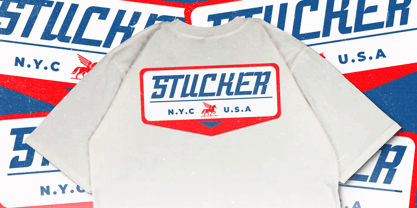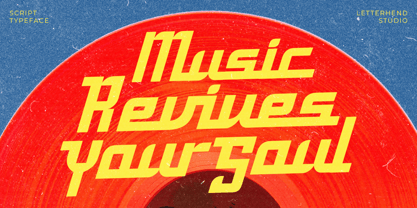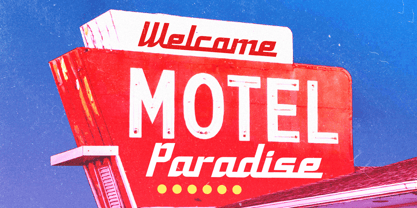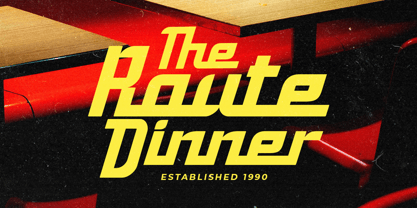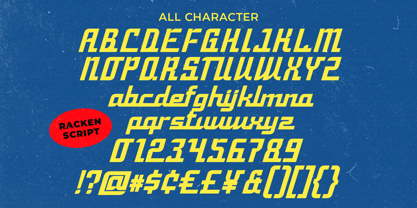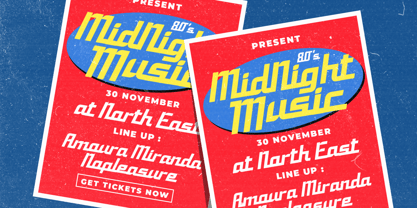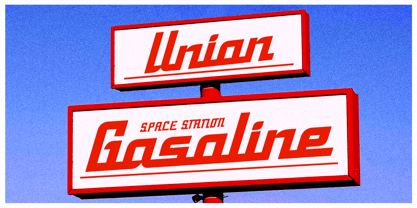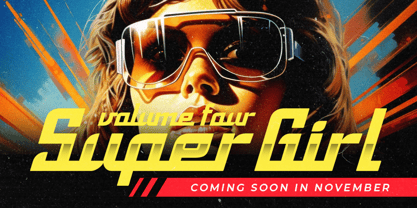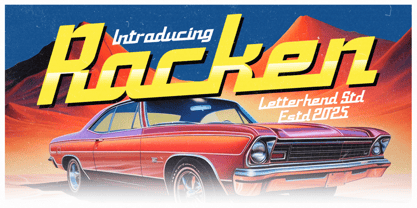
Racken
by Letterhend
The Racken Font Family was designed by Hendry Juanda and published by Letterhend. Racken contains 1 styles. More about this family
Racken is a bold retro display font that captures the thrilling energy of vintage muscle cars and 80s speed aesthetics. With its sharp edges, slanted form, and dynamic letter shapes, Racken brings a sense of motion and power to every design. Perfect for projects that needs a bold and nostalgic punch. Features : Uppercase & lowercase Numbers and punctuation Alternates & Ligatures Multilingual Support PUA encoded
Designers: Hendry Juanda
Foundry: Letterhend